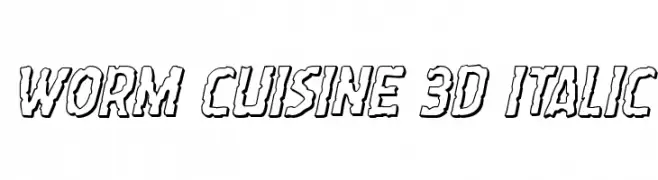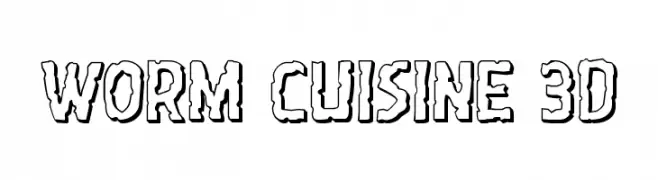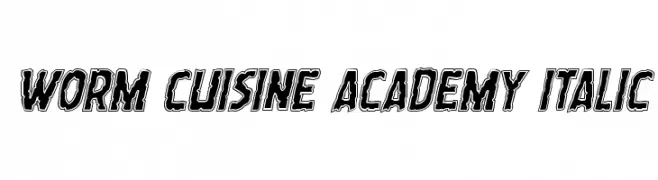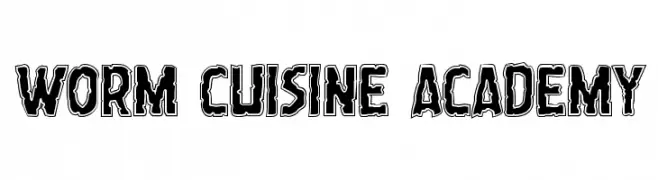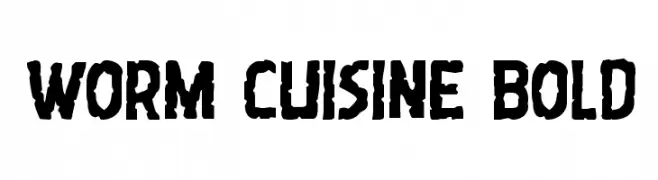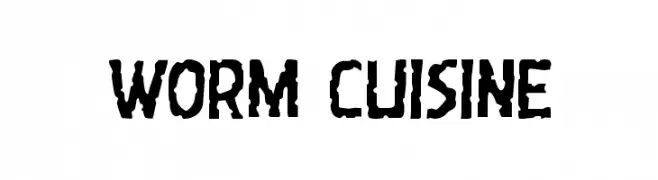
( Iconian Fonts - Daniel Zadorozny - www.iconian.com )
A rugged, textured font with an organic, hand-drawn appearance.
( Iconian Fonts - Daniel Zadorozny - www.iconian.com )
A playful, 3D worm-like font with bold, outlined characters.
( Iconian Fonts - Daniel Zadorozny - www.iconian.com )
A bold, 3D italic font with a playful, comic book style.
( Iconian Fonts - Daniel Zadorozny - www.iconian.com )
A bold, textured font with a rugged, graffiti-inspired design.
( Iconian Fonts - Daniel Zadorozny - www.iconian.com )
A bold, textured font with a rugged, italicized style.
( Iconian Fonts - Daniel Zadorozny - www.iconian.com )
A bold, rugged font with a distressed, hand-crafted appearance.